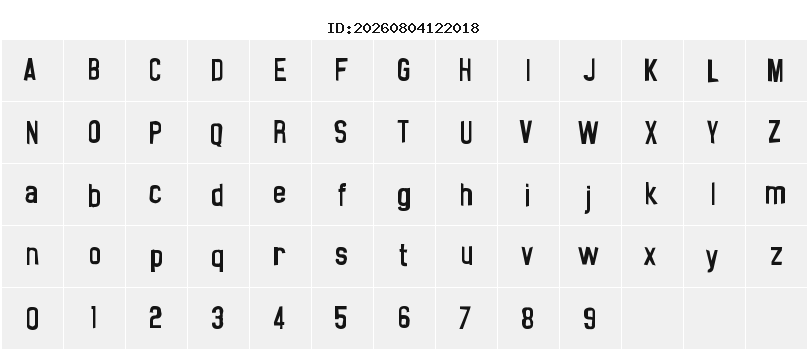
• Font Name: Noasarck Sporadico
About Noasarck Sporadico.otf
Noasarck Sporadico.otf is a modern, elegant sans-serif font designed for ultimate readability and visual harmony. Perfect for branding, headlines, web design, and print materials.